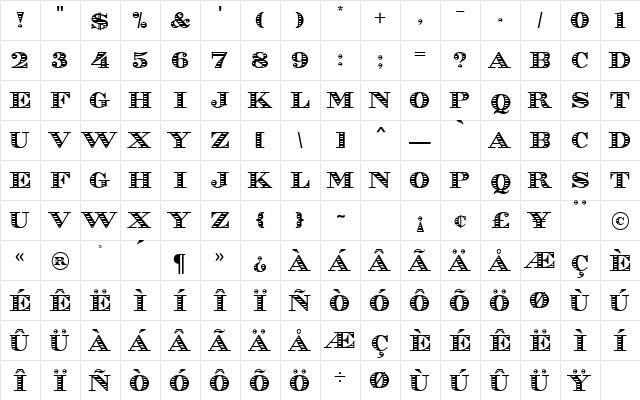
Jubilee Lines MN Regular
Design Context for Jubilee Lines MN Typeface
Jubilee Lines MN is a composed and adaptable typeface that performs quietly and consistently across a wide range of design contexts.